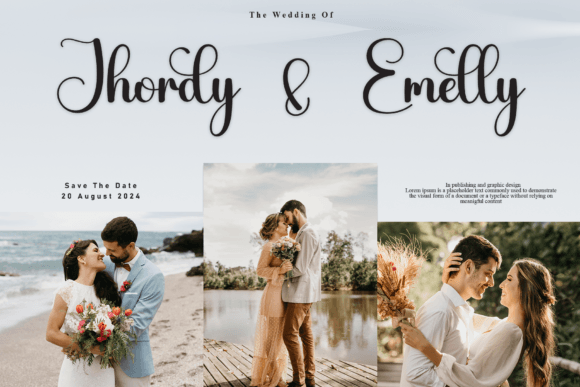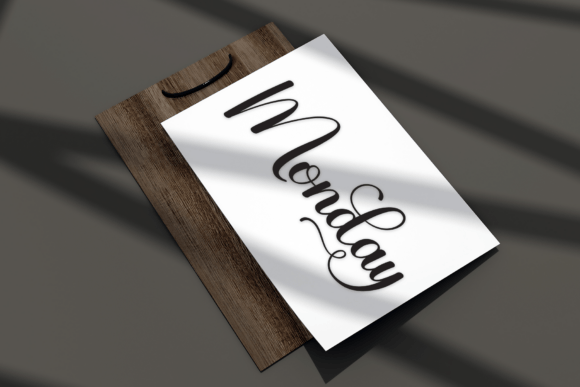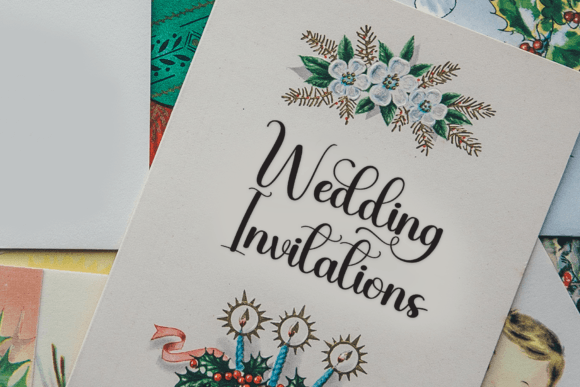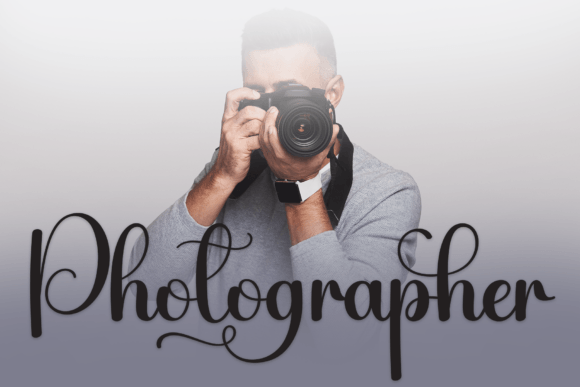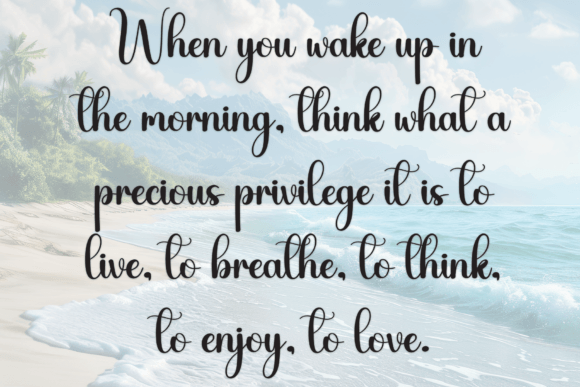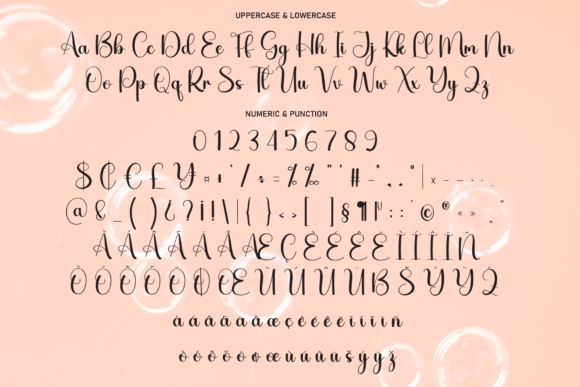
Bubly Font: Elevate Your Designs with Elegance and Sophistication
In the world of typography, fonts play a crucial role in conveying the tone and personality of a brand or design. For those seeking a bold, elegant, and luxurious look, the Bubly Font is an excellent choice. This stunning handwritten font boasts a smooth, flowing style that adds a classy and personal touch, making it perfect for special occasions, branding, or stylish projects.
What is Bubly Font?
Bubly Font is a beautifully crafted handwritten font that exudes luxury and sophistication. Its bold and elegant design makes it an ideal choice for designers and crafters looking to add a touch of class to their work. The font’s smooth, flowing style gives it a unique and distinctive look that sets it apart from other fonts.
Key Features of Bubly Font
- Bold and Elegant Design: Bubly Font features a bold and elegant design that is perfect for making a statement.
- Smooth and Flowing Style: The font’s smooth and flowing style gives it a luxurious and sophisticated look.
- Luxury Design: Bubly Font is designed to add a touch of luxury to any project, making it perfect for high-end branding, special occasions, or stylish designs.
- Classy and Personal Touch: The font’s elegant design adds a classy and personal touch to any project, making it perfect for designers and crafters looking to create unique and distinctive work.
Uses of Bubly Font
Bubly Font is a versatile font that can be used in a variety of projects, including:
- Branding: The font’s luxurious design makes it perfect for high-end branding, logos, and marketing materials.
- Special Occasions: Bubly Font is ideal for special occasions such as weddings, anniversaries, and birthdays.
- Stylish Projects: The font’s elegant design makes it perfect for stylish projects such as fashion designs, luxury packaging, and high-end advertising.
Benefits of Using Bubly Font
Using Bubly Font in your designs offers several benefits, including:
- Unique and Distinctive Look: The font’s bold and elegant design gives your work a unique and distinctive look that sets it apart from others.
- Professional and Sophisticated Feel: Bubly Font adds a professional and sophisticated feel to any project, making it perfect for high-end designs.
- Easy to Read: The font’s smooth and flowing style makes it easy to read, even in large or small sizes.
In conclusion, Bubly Font is a stunning handwritten font that offers a bold, elegant, and luxurious look. Its smooth, flowing style and classy design make it perfect for special occasions, branding, or stylish projects. With its unique and distinctive look, professional and sophisticated feel, and ease of use, Bubly Font is an excellent choice for designers and crafters looking to elevate their designs.